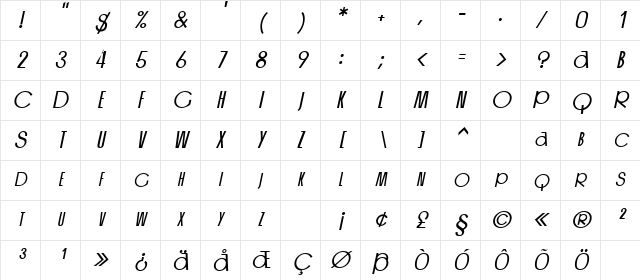
Complete CanneloSCapsSSK Italic glyph index. Displaying only characters natively supported by CanneloSCapsSSK Italic font.
CanneloSCapsSSK is a composed and adaptable typeface that performs quietly and consistently across a wide range of design contexts. The slanted form adds forward momentum and visual energy.
Pro Tip: Use CanneloSCapsSSK for emphasis, pull quotes, and subheadings where its slanted energy can add rhythm to the layout.